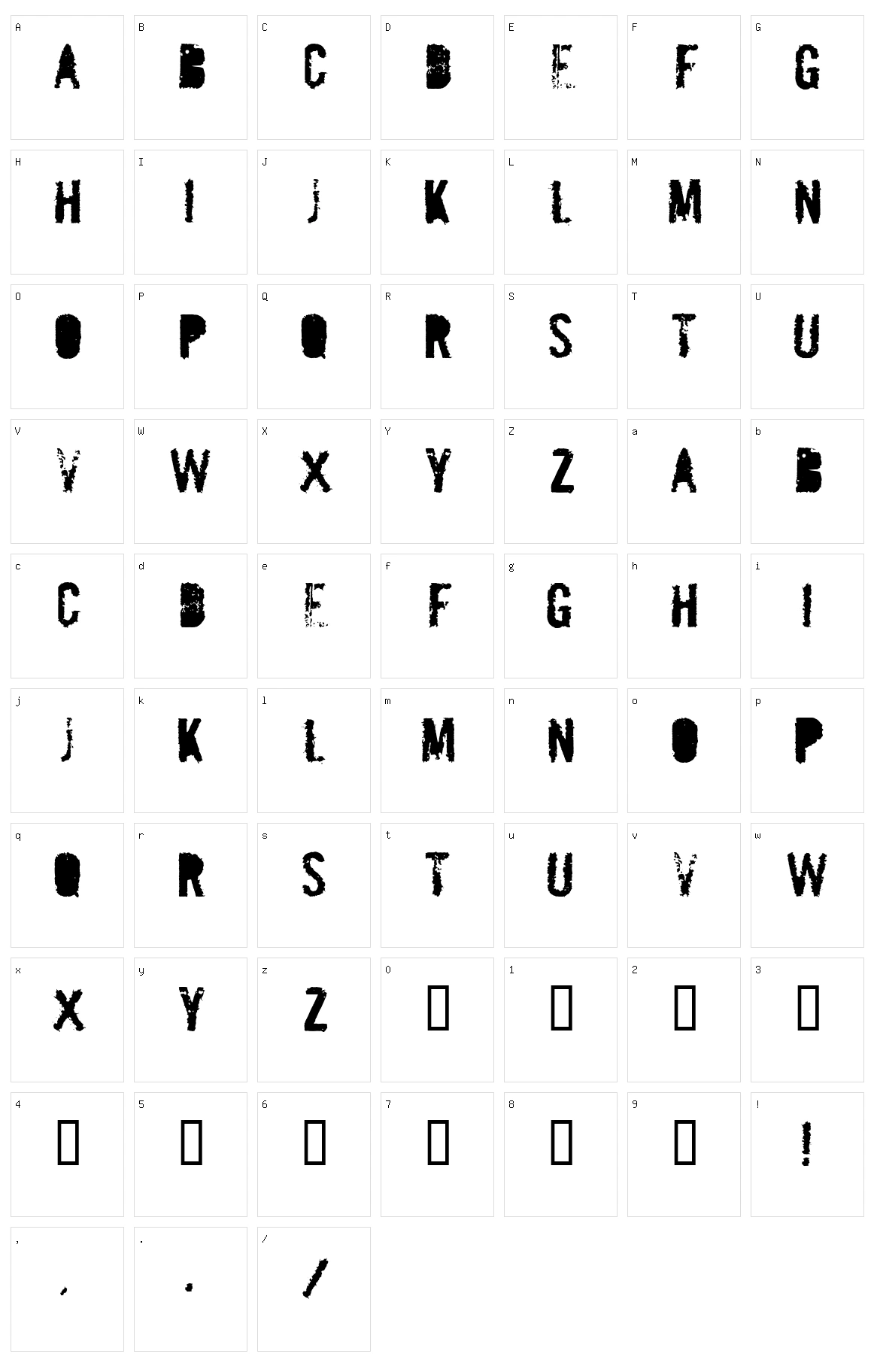
The free font Mailbomb is carefully designed by BombHaus, showcasing a thoughtful balance of creativity and usability and falls under the Destroy font style. When you download the ZIP file, it contains only 69.68 KB of font files, making it lightweight and quick to download. Please review the license details below to understand permitted usage and distribution rights. If license information is not available, we recommend using this font for personal projects only or contacting the author directly for commercial usage permissions.